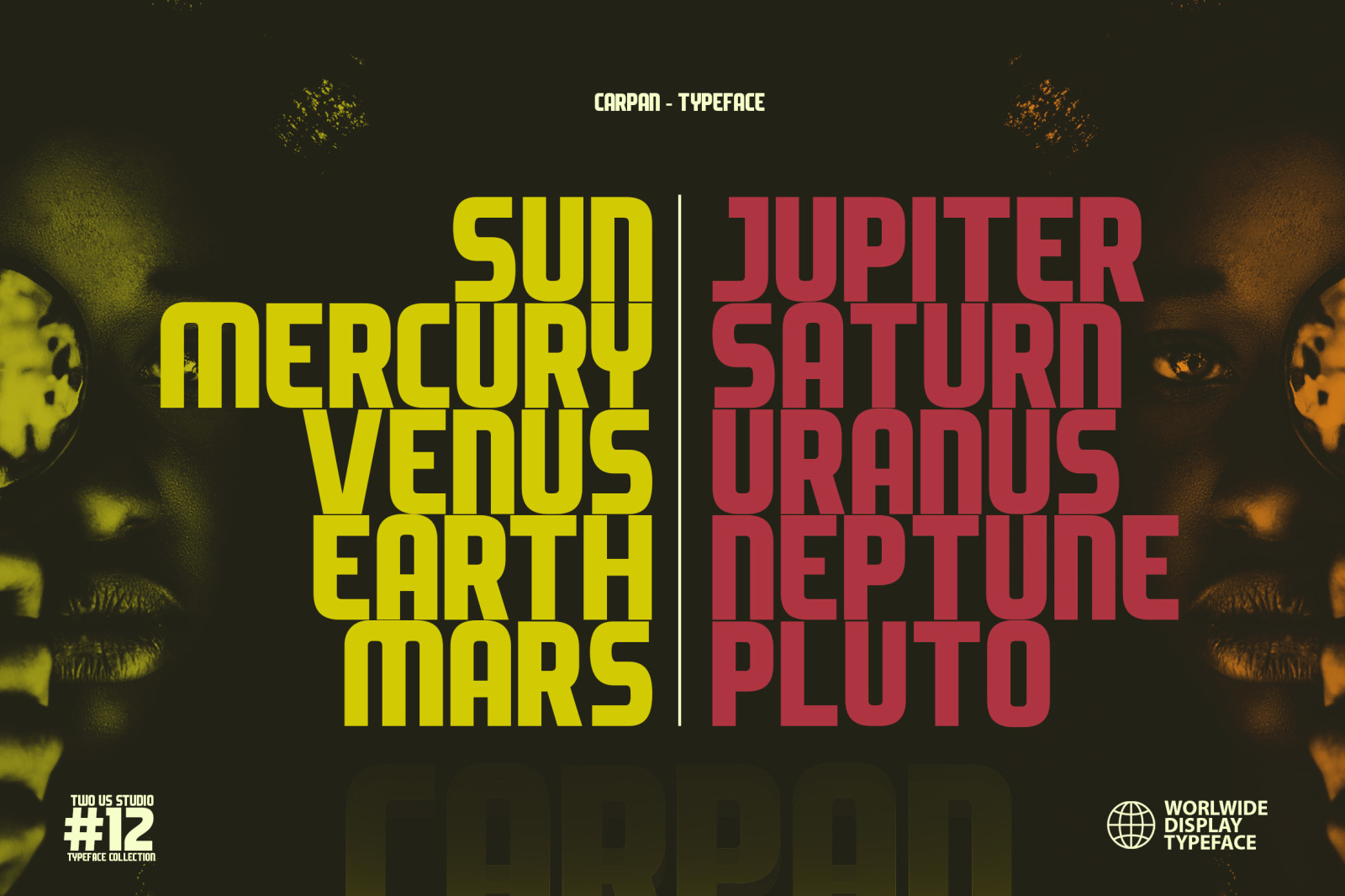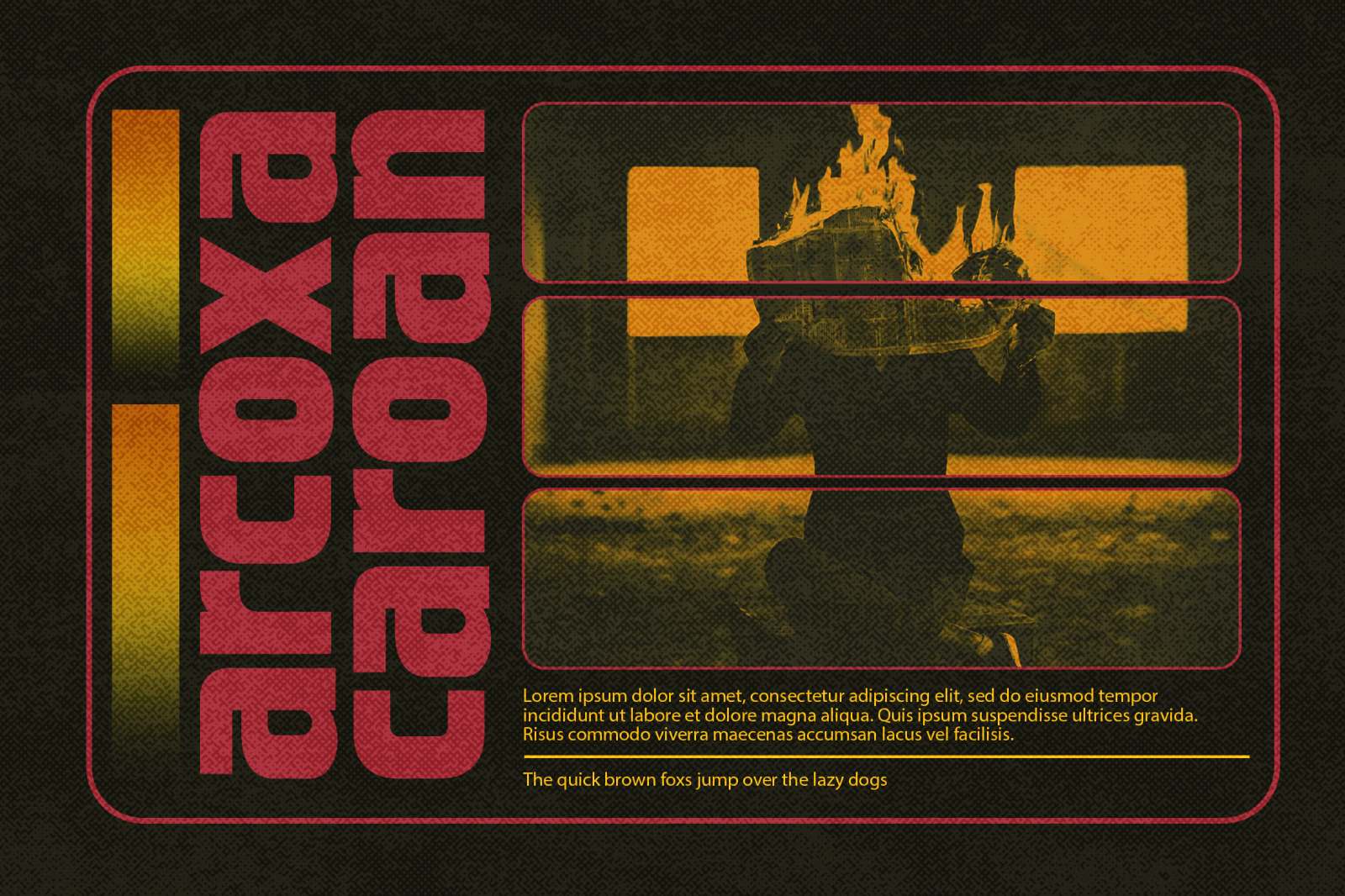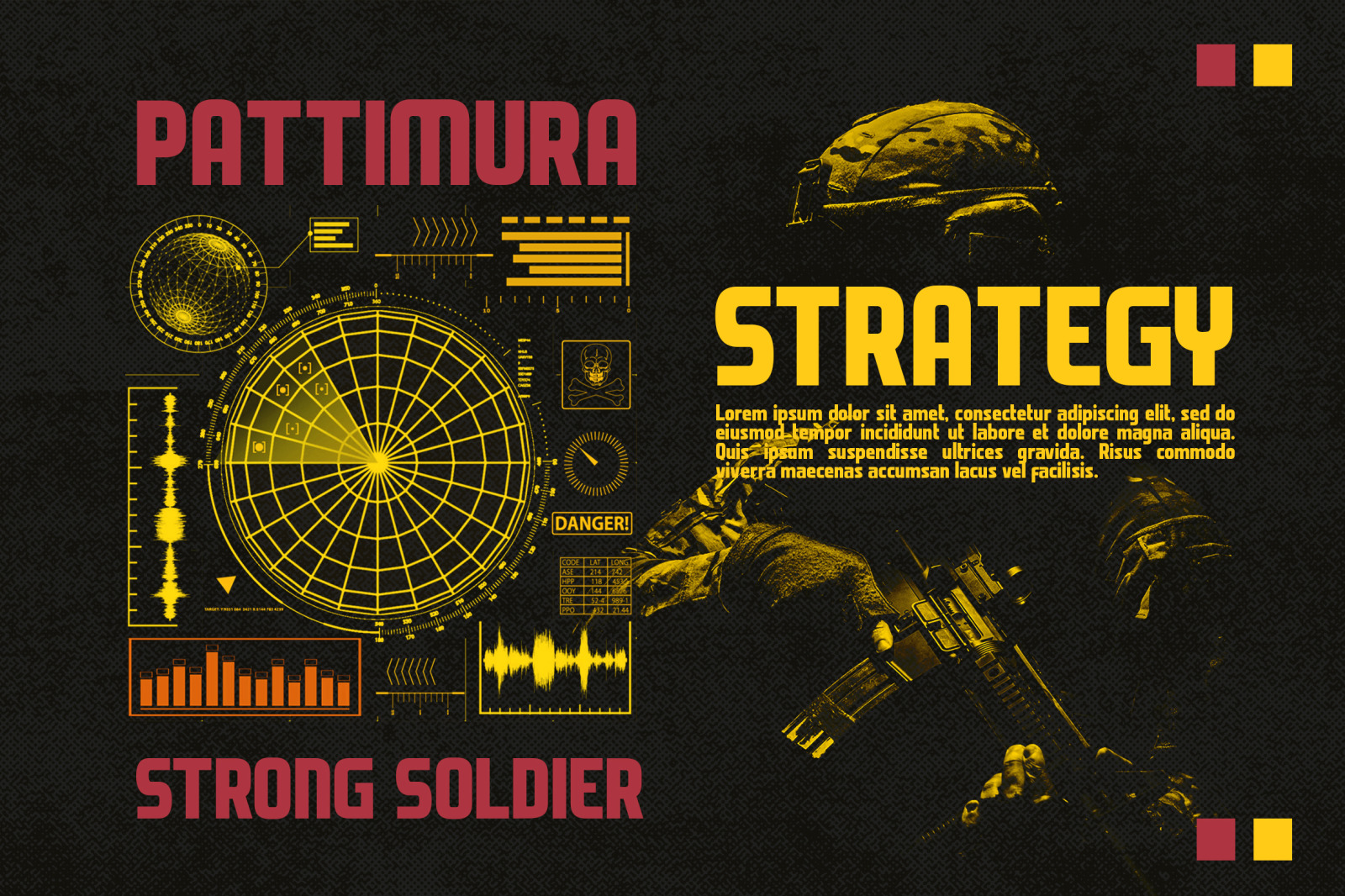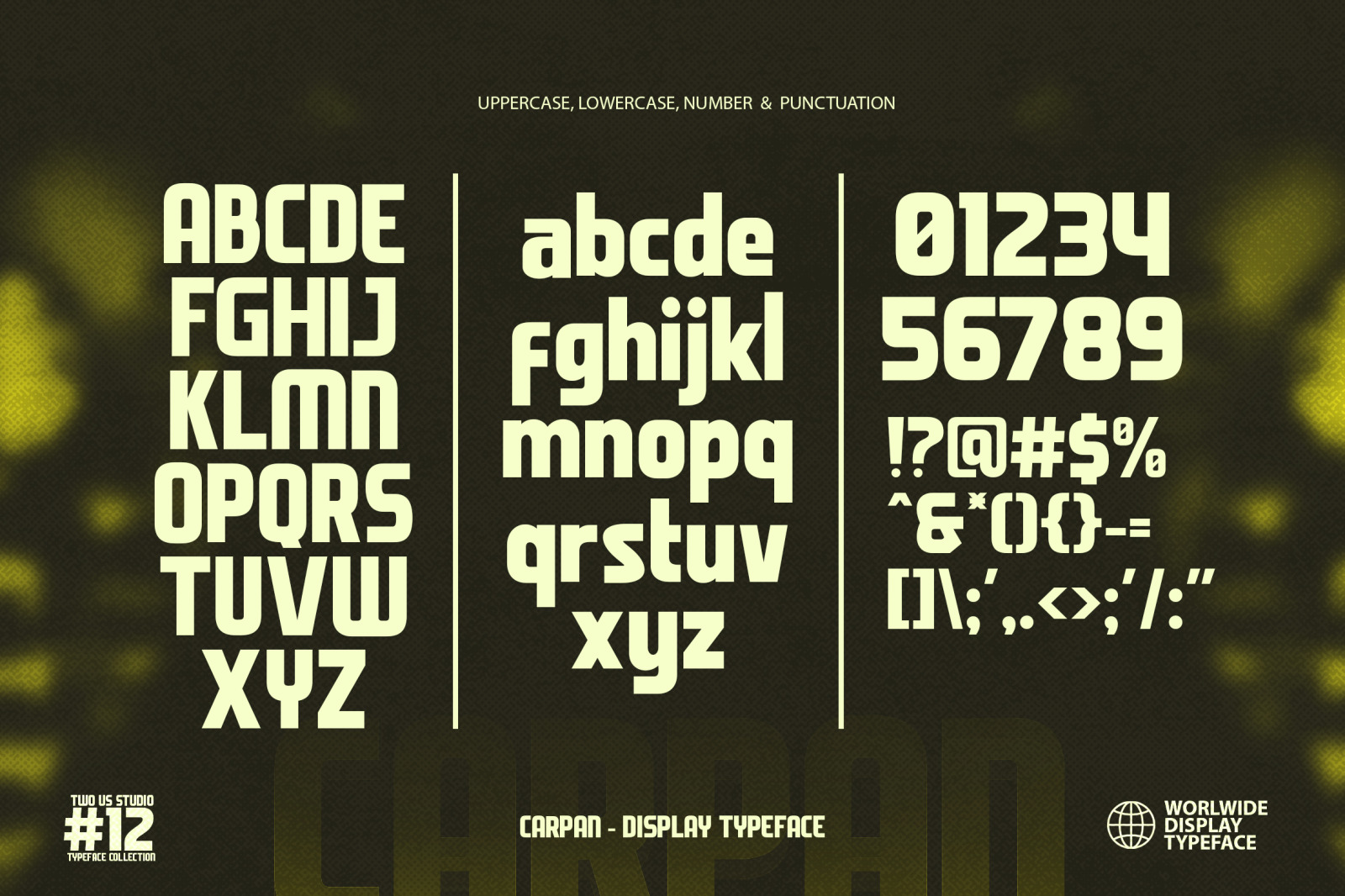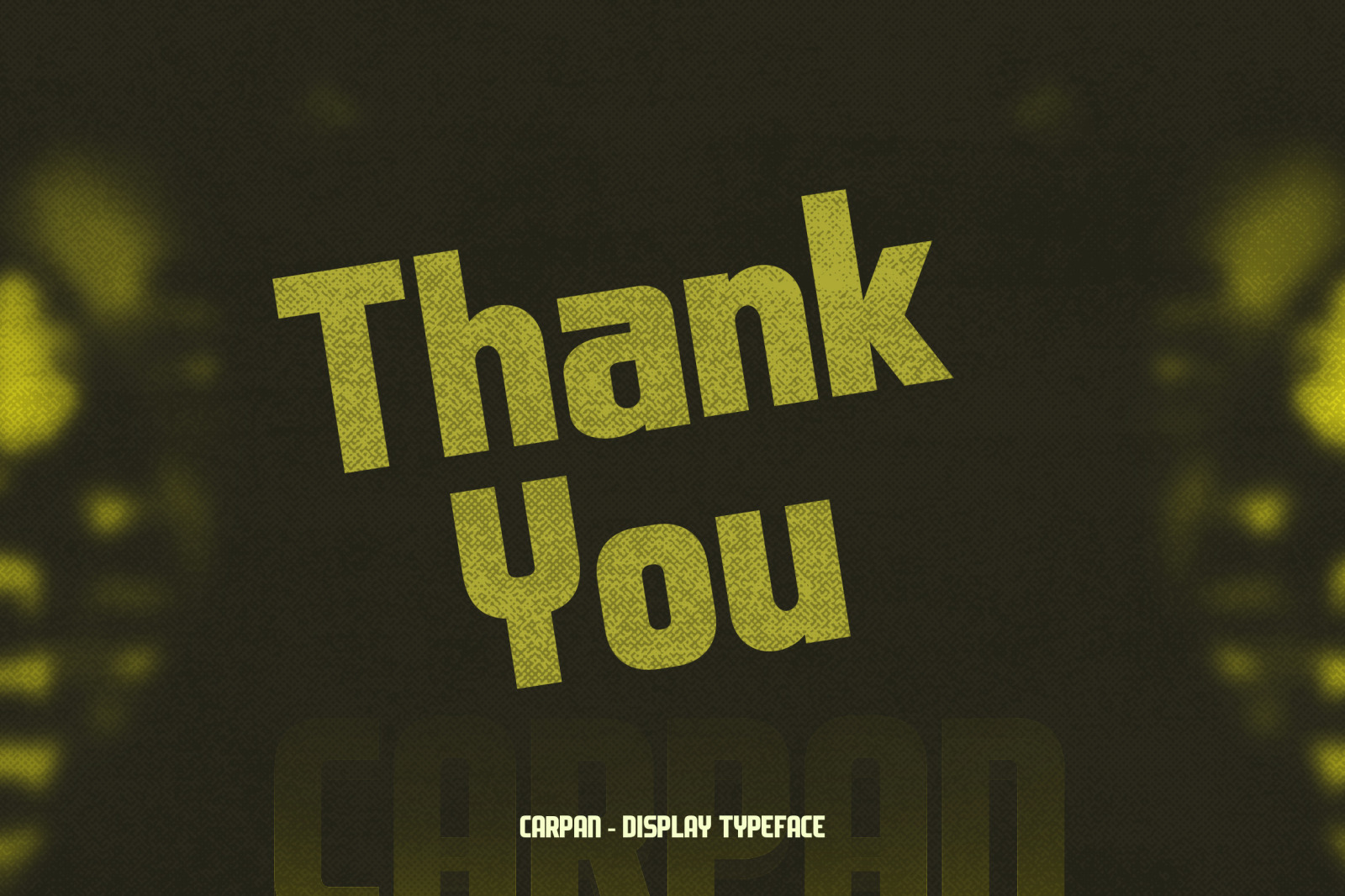
CARPAN - BOLD DISPLAY TYPEFACE
Carpan is a bold and modern sans serif family font. This minimalist and clean font can easily become your favorite. It can be used for books, magazines, social media posts, invitations, and so much more! So add this to your creations and take your designs to the next level!